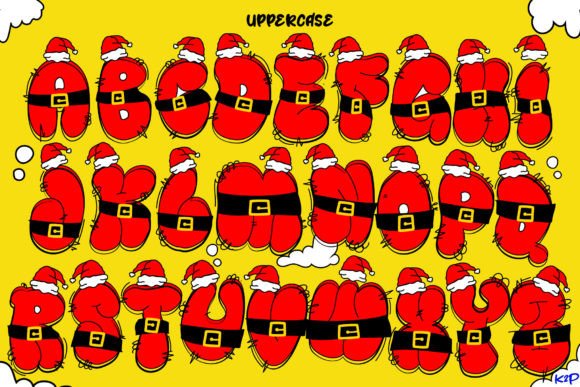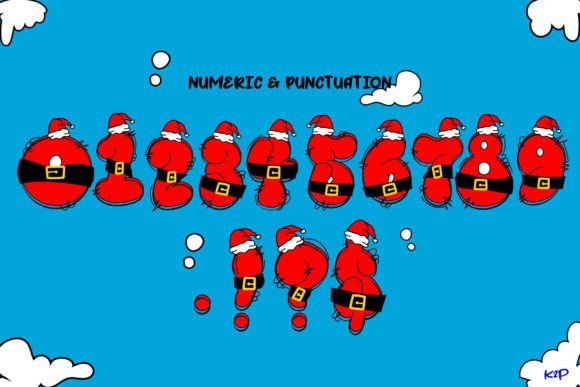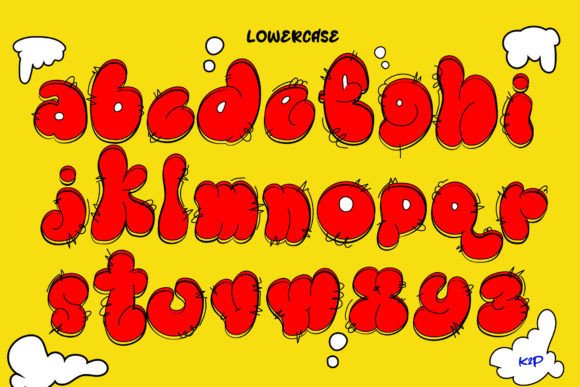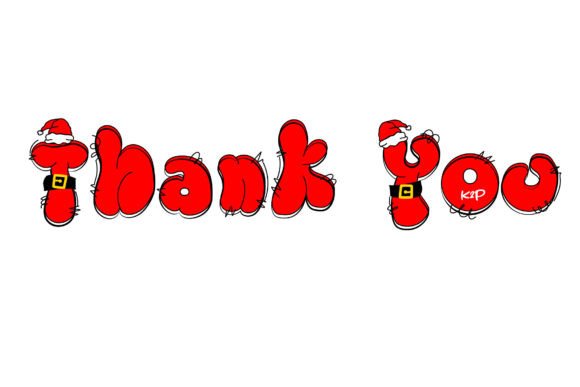
Deck the Halls with Big Santa Claus! Font
Do you ever find yourself browsing through holiday markets, surrounded by twinkling lights and the sound of festive music, feeling inspired to create something magical? Maybe it’s the smell of hot cocoa, or the sight of a beautifully decorated tree that sparks your creativity. Whatever it is, we’re here to help you bring that vision to life with the perfect font – Big Santa Claus! Font.
This fun, thick lettered font is more than just a pretty face. With its PUA encoding, you’ll have access to all the glyphs and swashes you need to create truly unique and eye-catching designs. Whether you’re making holiday cards, party decorations, or gift tags, Big Santa Claus! Font is sure to add a touch of whimsy and fun to your creations.
- Unique Characteristics: This font features a large, bold, and playful design of Santa Claus, perfect for holiday-themed projects and designs.
Big Santa Claus! Font Review
At first glance, Big Santa Claus! Font seems like a playful addition to any holiday-themed project. I must admit, I’m drawn to its whimsical charm and festive vibe ✨. The font’s bold and rounded design does evoke the jolly spirit of Santa Claus, making it perfect for Christmas-related materials like greeting cards, posters, or social media graphics.
One of the strengths of this font is its versatility. It can be used in a variety of contexts, from traditional Christmas designs to more modern, trendy interpretations. Additionally, the font’s bold style makes it easily readable in smaller sizes, which is a bonus for designers who need to ensure their message gets across clearly ✨.
However, there are some limitations to consider ⚠️. The font may not be suitable for projects that require a more formal or elegant tone. Additionally, the font’s bold style can make it feel a bit overwhelming in larger sizes, which may not be ideal for all designs.
Pros and Cons:
- ✨ Whimsical and festive design
- ✨ Versatile and suitable for various contexts
- ✨ Bold style makes it readable in smaller sizes
- ⚠️ May not be suitable for formal or elegant projects
- ⚠️ Bold style can feel overwhelming in larger sizes
Overall, I’d say Big Santa Claus! Font is a fun and playful addition to any holiday-themed project. While it may have some limitations, its versatility and whimsical charm make it a great choice for designers looking to add some festive flair to their work.
The Big Santa Claus Font is ideal for creating festive and fun designs, such as holiday greeting cards, party invitations, and social media graphics.
To get the most out of this font, use it in bold and playful combinations with other festive fonts and graphics.